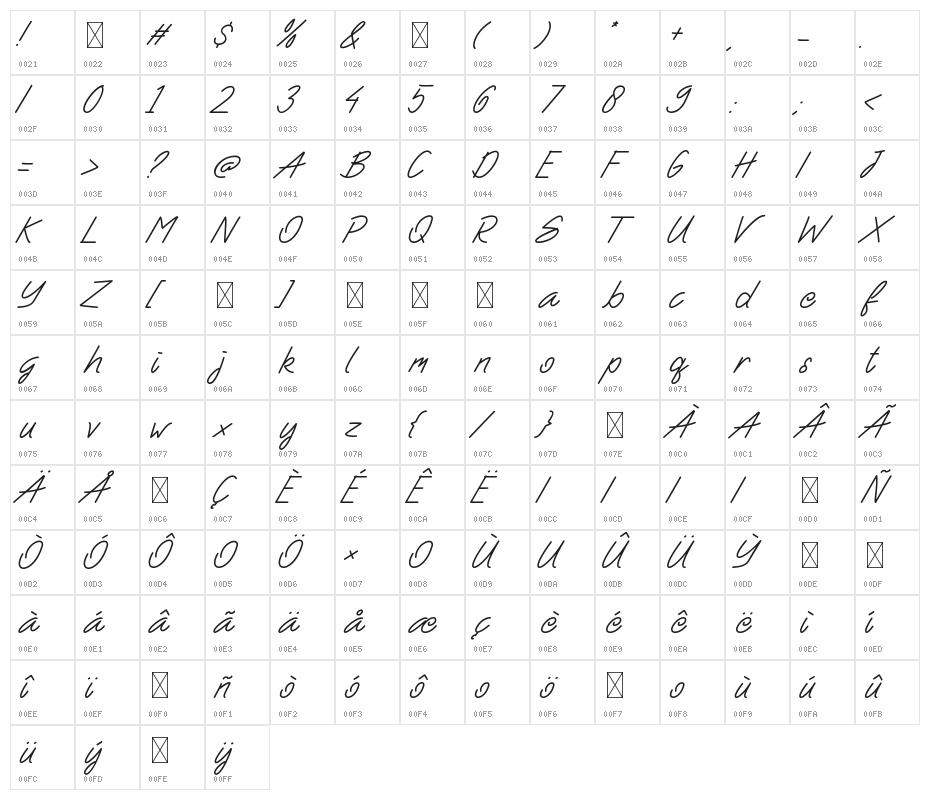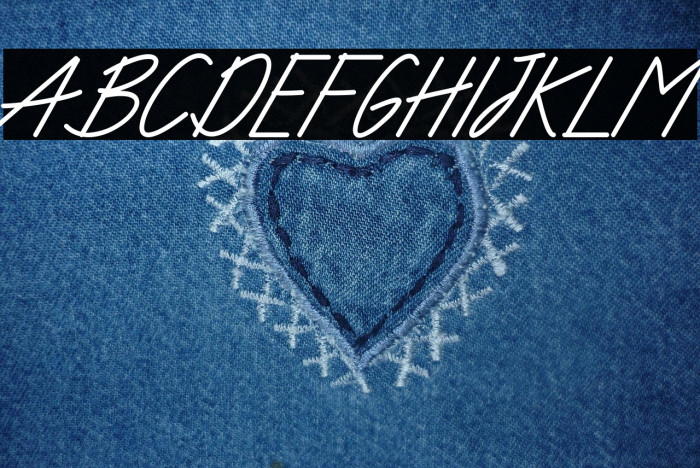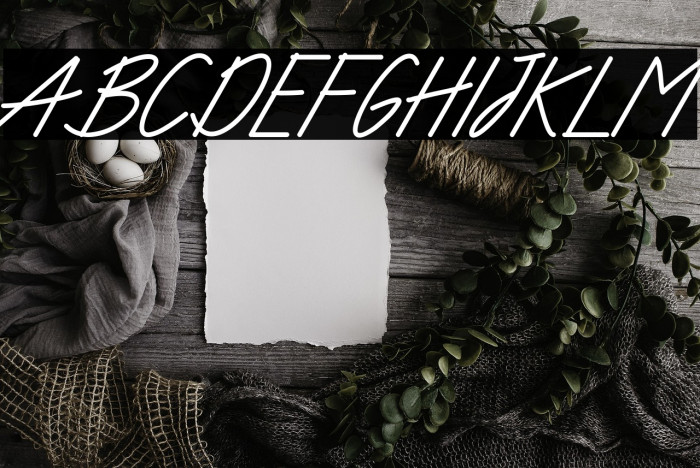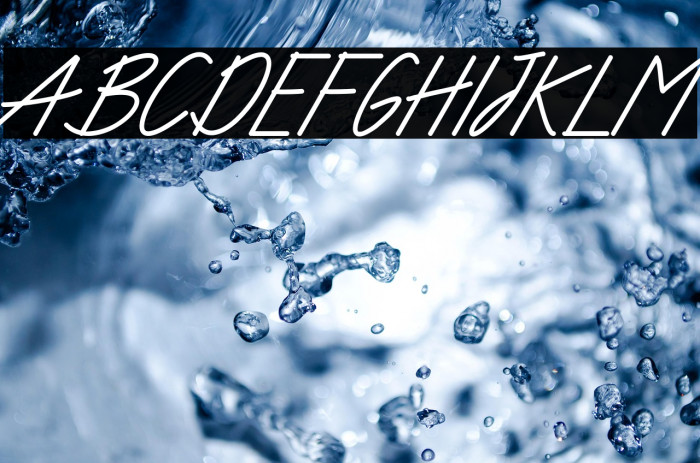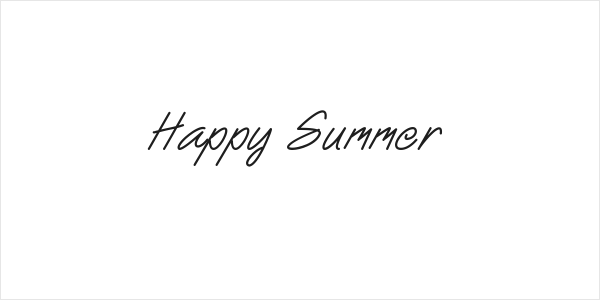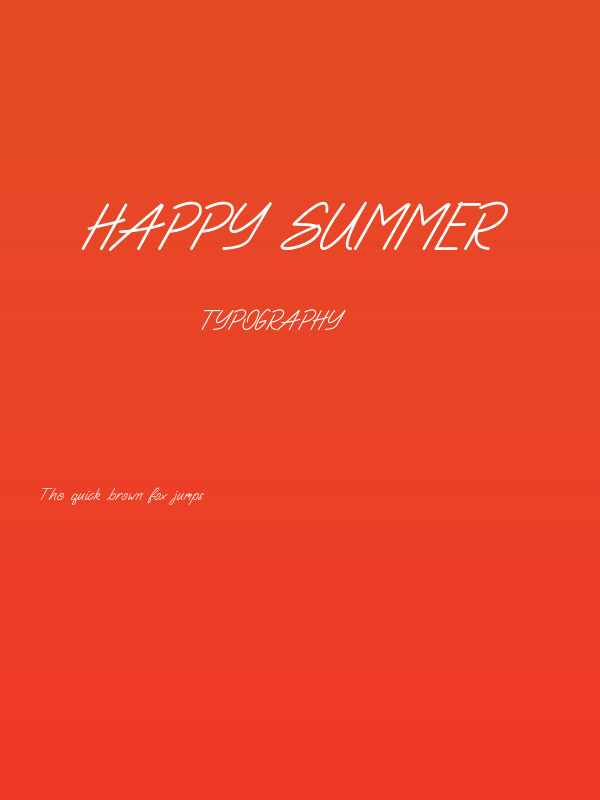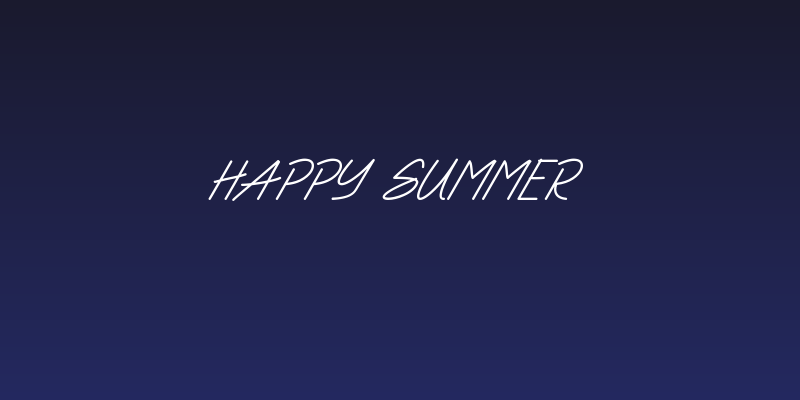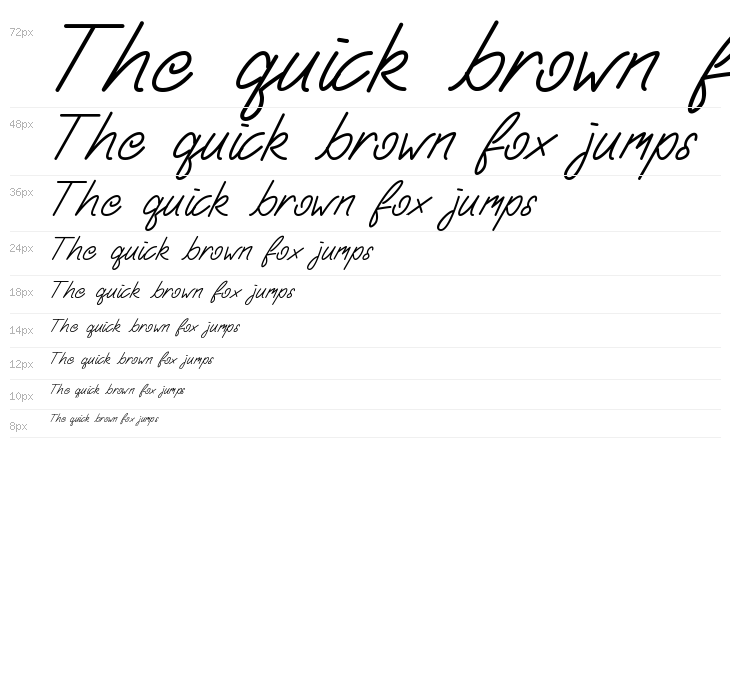
Happy Summer Font
Happy Summer Description
This font features a lively and flowing script style, characterized by its smooth, connected strokes and elegant curves. The uppercase letters are slightly larger and more pronounced, while the lowercase letters maintain a consistent flow, enhancing readability. Numbers and special characters are designed to complement the overall script style, with a playful yet sophisticated appearance. The font exudes a sense of casual elegance, making it suitable for projects that require a personal touch. Its handwritten quality adds warmth and approachability, making it ideal for creative and expressive designs.